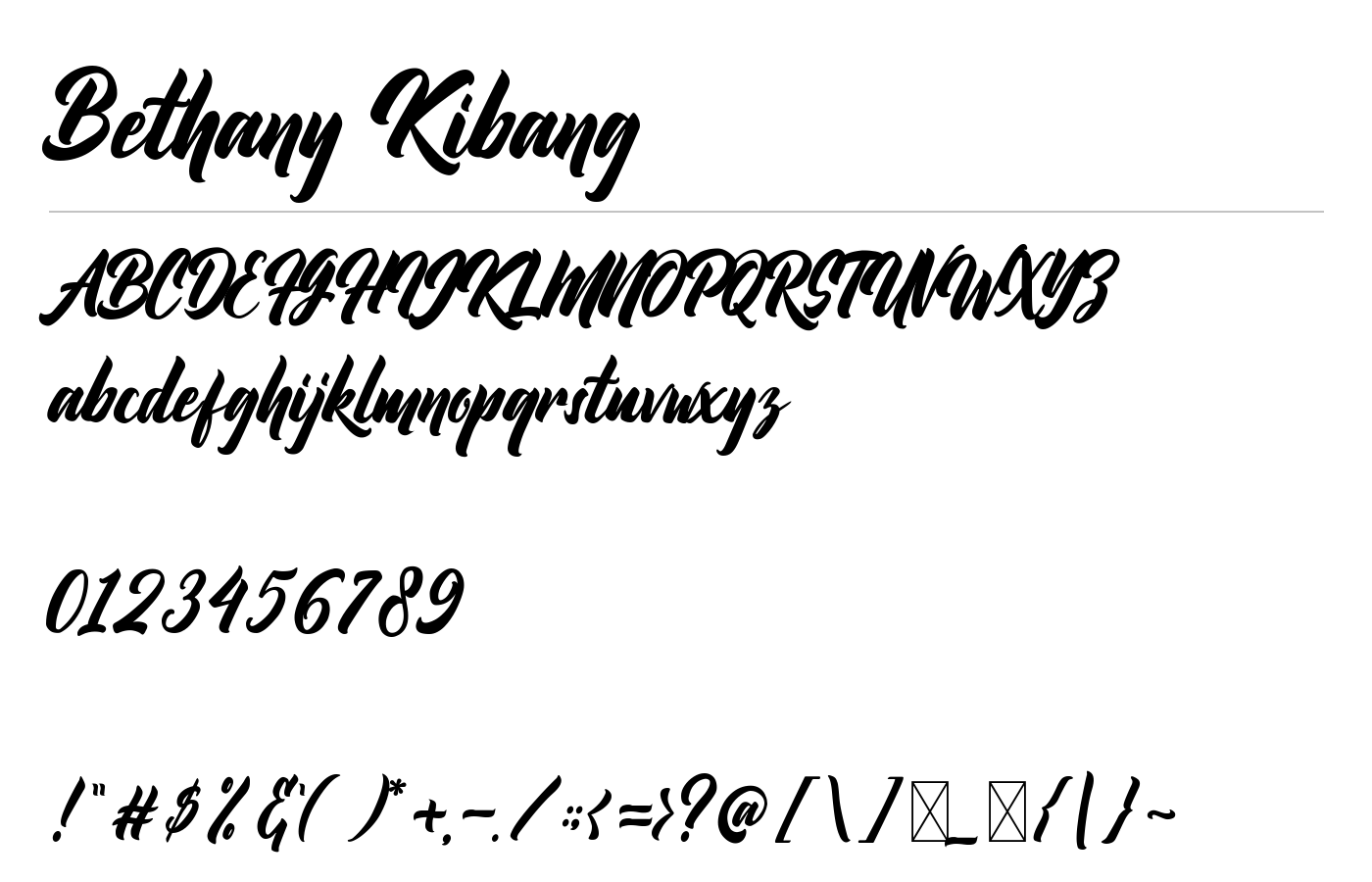
Bethany Kibang is a bold, expressive script font with fluid, brush-like strokes that create a lively, handcrafted feel. Its lively curves and strong presence make it ideal for eye-catching headlines, logos, and creative projects that want to convey personality and energy. This font works especially well in branding and packaging where a modern yet personal touch is desired.
Bethany Kibang Font
About Bethany Kibang Font